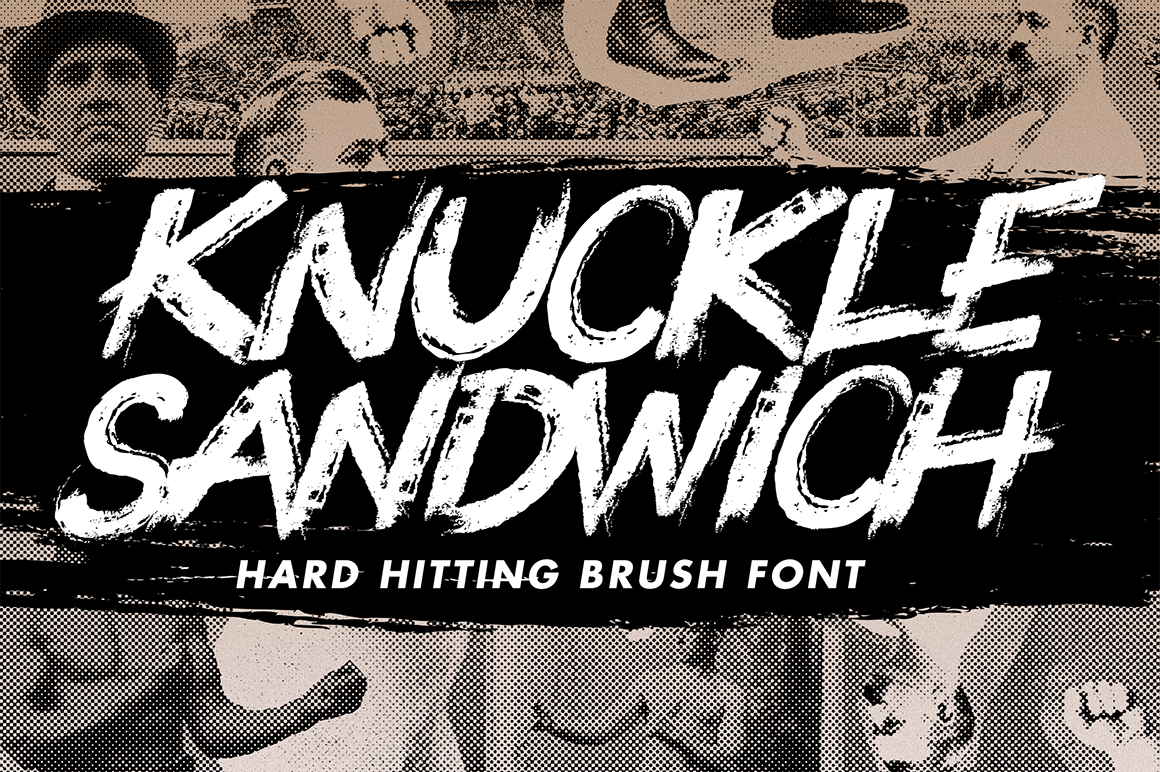
Knuckle Sandwich - A brush font
Introducing Knuckle Sandwich. A hard hitting brush font with over 300 glyphs. Uses uppercase and lowercase for stylistic alternates, for ease and quickness.
Quick dry strokes and a rough style, Knuckle Sandwich is perfect for branding projects, art prints with an edge, product packaging - or as a text overlay with attitude to a nice background image.
Knuckle Sandwich supports basic latin, western European, central European and south eastern European characters. Over 300 of them, let me know over a message is there is a charcter that you are lacking.
ALSO INCLUDED: Knuckle Sandwich - Swashes. A font with nice looking swashes to go with Knuckle Sandwich for that extra finishing touch to your designs. Just access them thru A-Z.